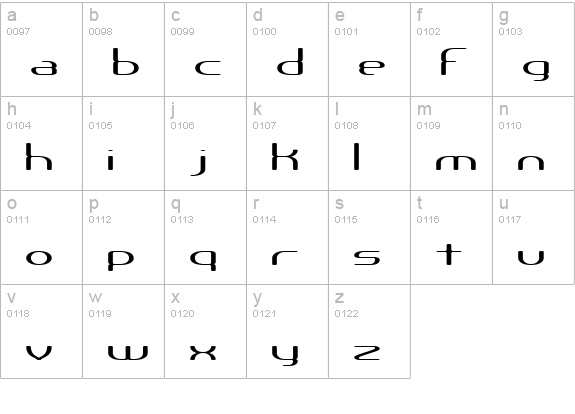
Nanosecond Wide BRK Font Details
Nanosecond Wide BRK is a distinctive, extended-width variant in the Nanosecond typeface family \xE2\x80\x94 well suited to design and typography projects.
The Nanosecond Wide BRK font is a modern and sleek typeface that exudes a sense of speed and efficiency. With its sharp angles and clean lines, this font is perfect for technology-related projects, futuristic designs, and high-energy content. The wide spacing between the letters gives it a unique and eye-catching look that will make your text stand out. Best of all, the Nanosecond Wide BRK font is available for free download at FontsMarket.com. Whether you're working on a website, a presentation, or any other creative project, this font is sure to add a dynamic and contemporary touch. Don't miss out on the opportunity to enhance your designs with this stylish and versatile typeface. Download the Nanosecond Wide BRK font today and take your projects to the next level!